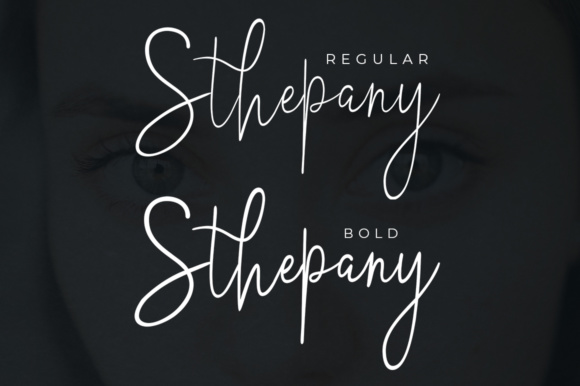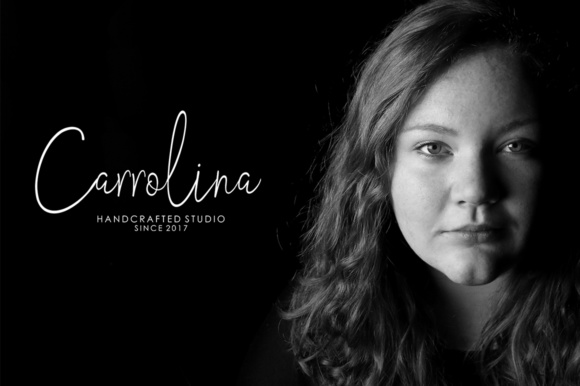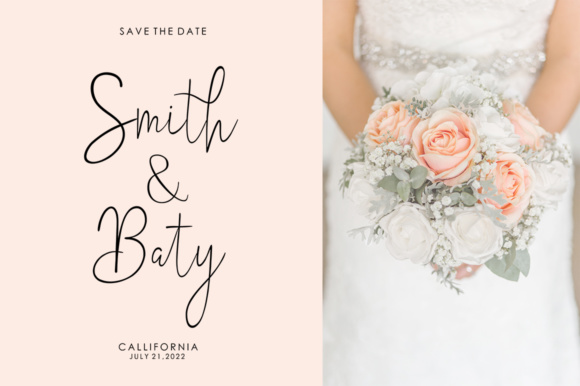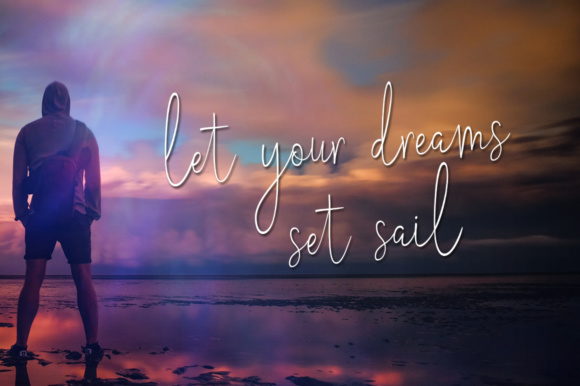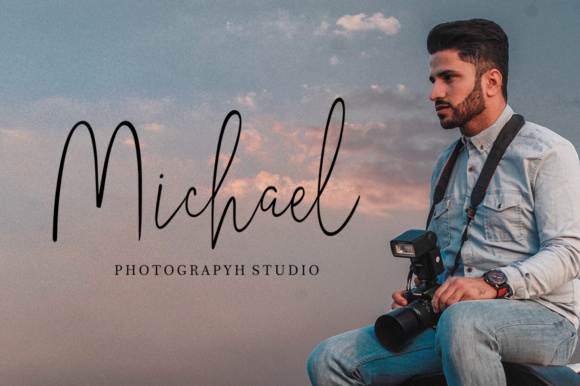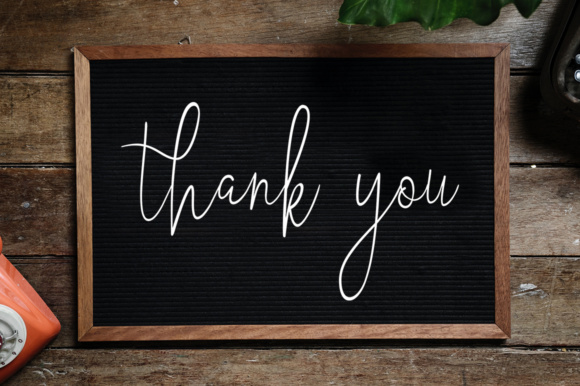
Sthephen Font
About Sthephen Font
Sthephen is an elegant combination of a script and a narrow modern serif. It is slender, feminine and classy, while still maintaining a friendly feel. Sthephen is versatile and will work perfectly for fashion, e-commerce brands, trend blogs, wedding boutiques or any business that wants to appear upscale and chic. With its many stylistic characters, Sthephen is perfect for creating an original and functional design.
You can use Sthephen for high-end logotypes and magazine headlines, but let’s not forget greeting cards, invitations, posters, book covers, ads and the various web and screen usages. The overall feel of the font is elegant, sophisticated with a touch of informal and it is ideal if you want to convey a sense of class and style.